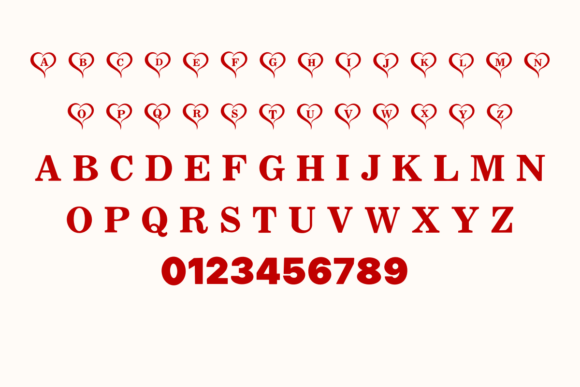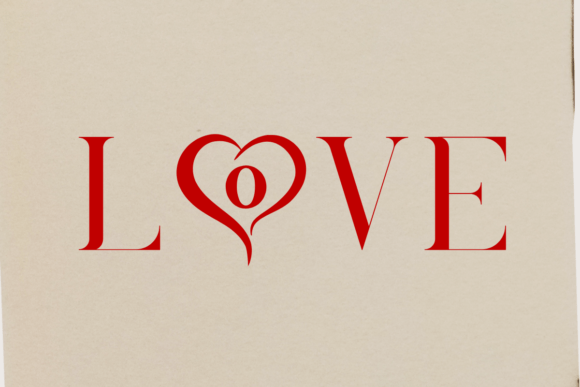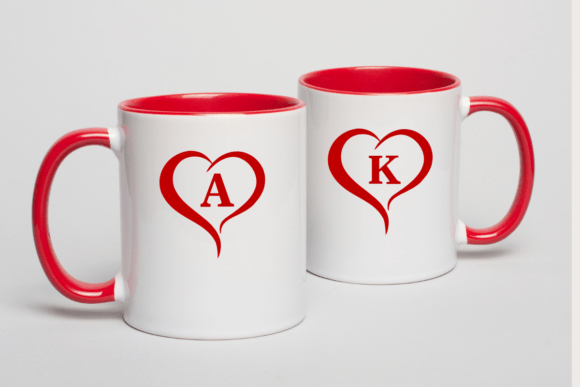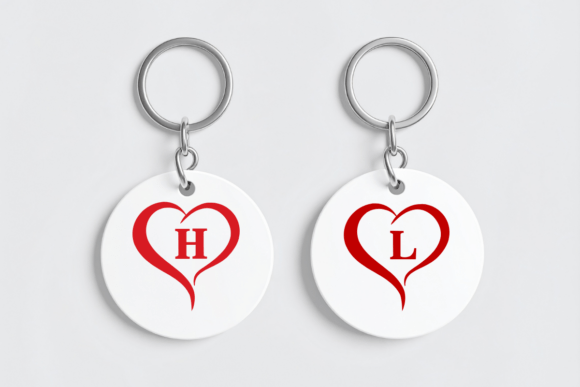
Heart Love Font: The Perfect Addition to Your Creative Projects
Are you a designer, crafter, or DIY enthusiast looking for a unique and lovely font to add a touch of warmth and personality to your creative projects? Look no further than the Heart Love Font! This beautiful decorative font is sure to capture the hearts of your audience and make your designs stand out.
What is Heart Love Font?
Heart Love Font is a stunning decorative font that features heart-shaped letters and characters. Its playful and whimsical design makes it perfect for a variety of creative projects, from handmade cards and invitations to social media graphics and digital art. The font’s unique and eye-catching design is sure to add a touch of romance and sweetness to any design.
Key Features of Heart Love Font
- Unique and eye-catching design: The Heart Love Font features heart-shaped letters and characters that are sure to grab attention and add a touch of personality to your designs.
- Playful and whimsical: The font’s playful and whimsical design makes it perfect for creative projects that require a touch of fun and romance.
- Versatile: The font can be used for a variety of creative projects, from handmade cards and invitations to social media graphics and digital art.
Creative Ideas for Using Heart Love Font
The Heart Love Font is a versatile font that can be used for a variety of creative projects. Here are a few ideas to get you started:
- Handmade cards and invitations: Add a touch of romance and sweetness to your handmade cards and invitations with the Heart Love Font.
- Social media graphics: Use the Heart Love Font to create eye-catching social media graphics that are sure to grab attention.
- Digital art: Add a touch of whimsy and playfulness to your digital art with the Heart Love Font.
- Crafting projects: Use the Heart Love Font to add a personal touch to your crafting projects, such as scrapbooking or journaling.
Tips for Getting the Most Out of Heart Love Font
Here are a few tips for getting the most out of the Heart Love Font:
- Experiment with different colors: The Heart Love Font looks great in a variety of colors, so don’t be afraid to experiment and find the perfect color for your design.
- Pair with other fonts: The Heart Love Font pairs well with other fonts, so try pairing it with a bold or script font to add contrast and interest to your design.
- Use in combination with images: The Heart Love Font looks great in combination with images, so try using it to add a touch of personality to your photos or illustrations.
The Heart Love Font is a lovely decorative font that is sure to add a touch of warmth and personality to your creative projects. Its unique and eye-catching design makes it perfect for a variety of creative projects, from handmade cards and invitations to social media graphics and digital art. With its ease of use and versatility, the Heart Love Font is a must-have for designers and crafters of all skill levels. So why wait? Download the Heart Love Font today and start adding a touch of love and sweetness to your designs!